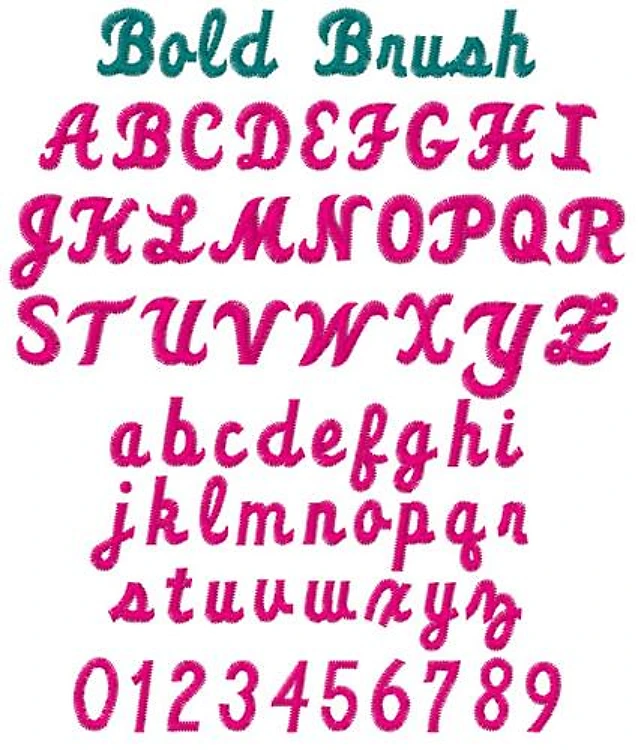
Internet Stitch is happy to present Bold Brush machine embroidery font which has This script machine embroidery font showcases smooth, flowing letters with a thick, brushed texture, perfect for vibrant floral designs on cushions. Available in ELP formats. included. If you would like to view more embroidery fonts and alphabets please search our embroidery fonts page.